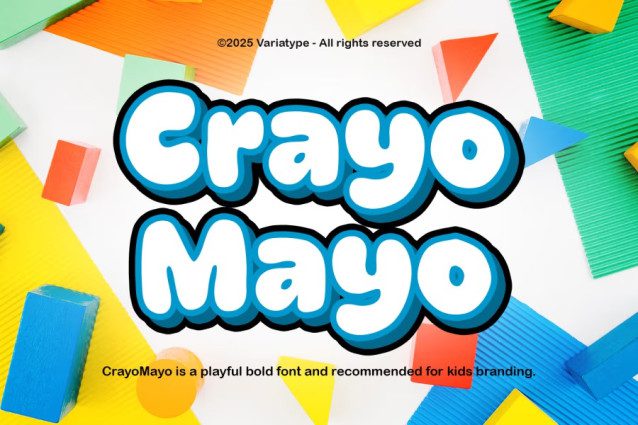
Crayomayo Font
CrayoMayo Font is a cheerful and playful bold font designed to spark imagination and joy. With its soft, bubbly shapes and friendly curves, it’s perfect for kids’ branding, toy packaging, storybooks, and fun digital projects. CrayoMayo adds a touch of happiness and creativity to any design that aims to be bright, youthful, and full of energy.